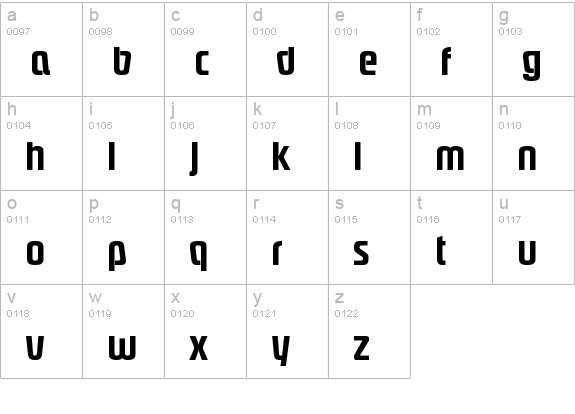
PasadenaSerial-Bold is a strong, high-contrast variant in the PasadenaSerial typeface family \xE2\x80\x94 well suited to headlines, attention-grabbing titles, and strong calls-to-action.
PasadenaSerial-Bold font is a bold and striking typeface that commands attention with its strong and modern aesthetic. Its clean lines and geometric shapes make it perfect for headlines, titles, and other design projects that require a touch of boldness. The font exudes confidence and professionalism, making it a great choice for branding, advertising, and editorial use. What makes PasadenaSerial-Bold even more appealing is that it is available for free download at FontsMarket.com. This means you can easily access this high-quality font without any cost, adding value to your design projects without breaking the bank. Embrace the power and versatility of PasadenaSerial-Bold font today and elevate your designs to new heights.